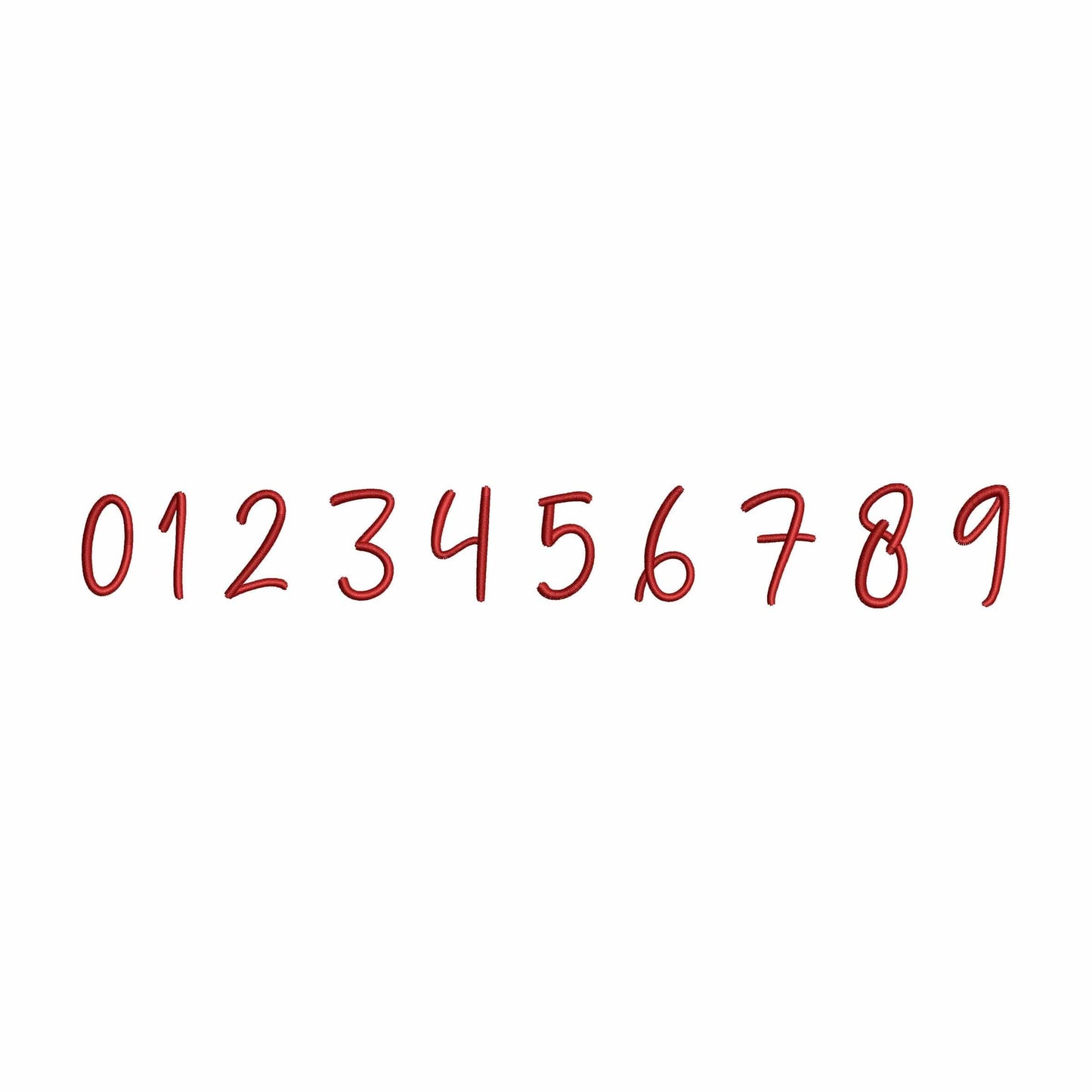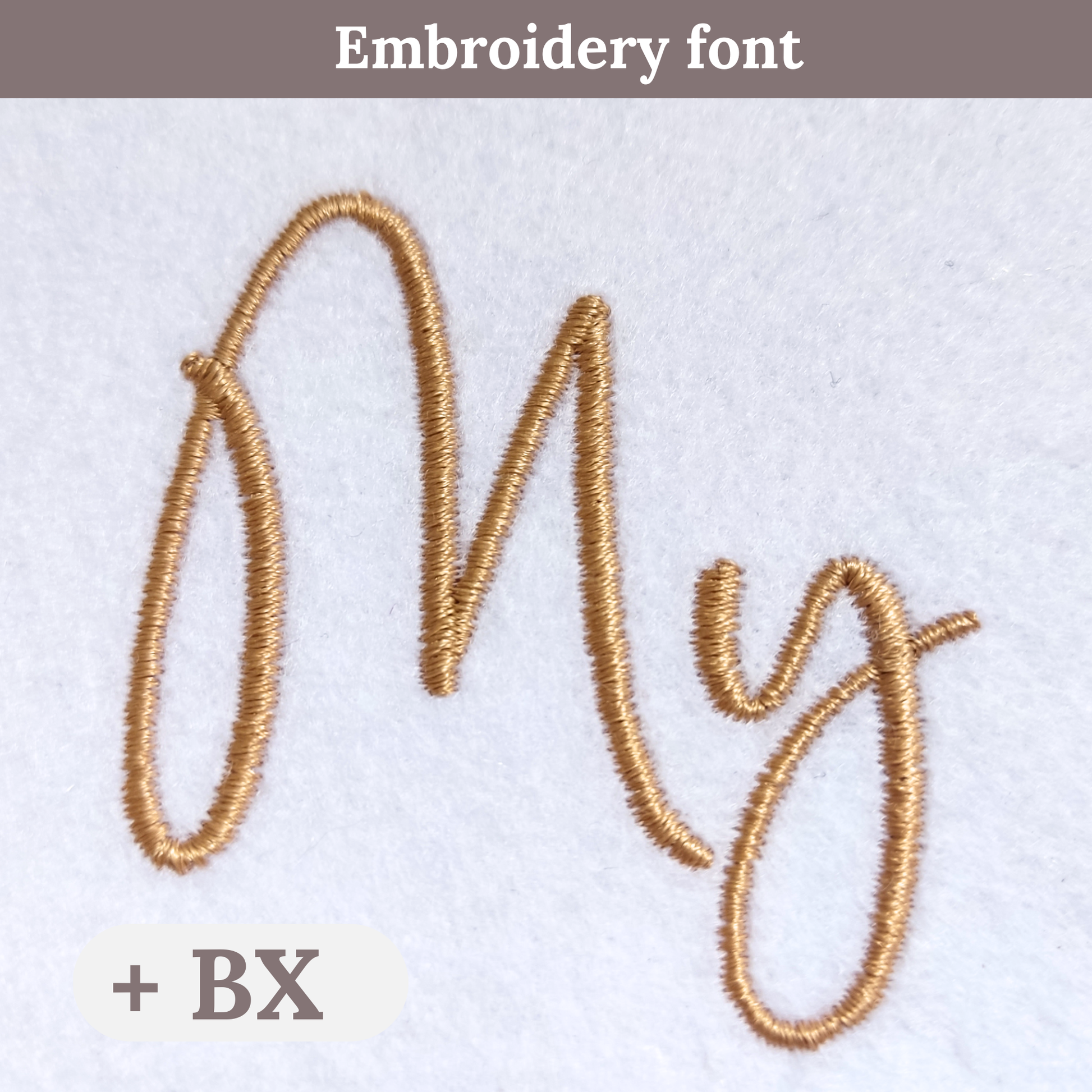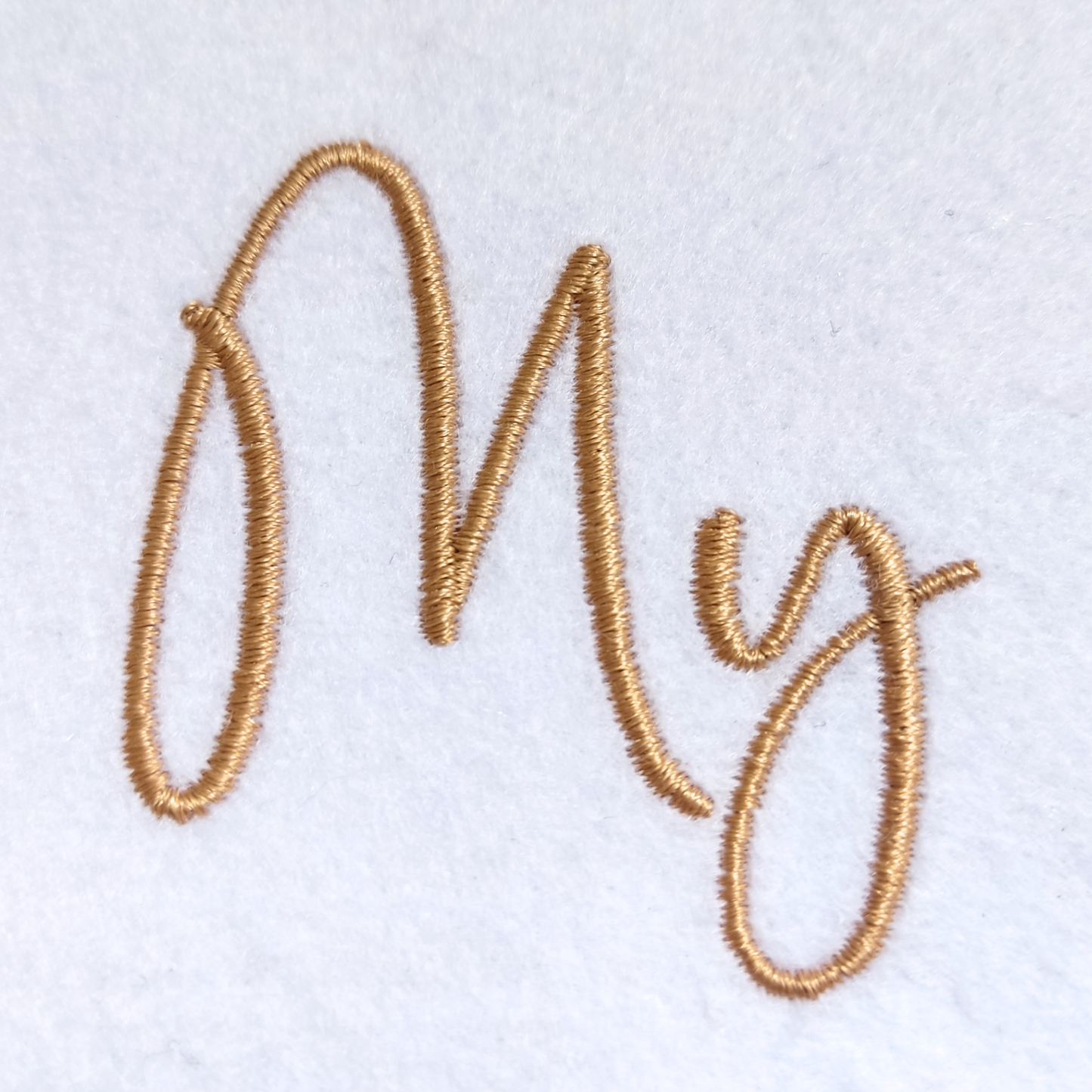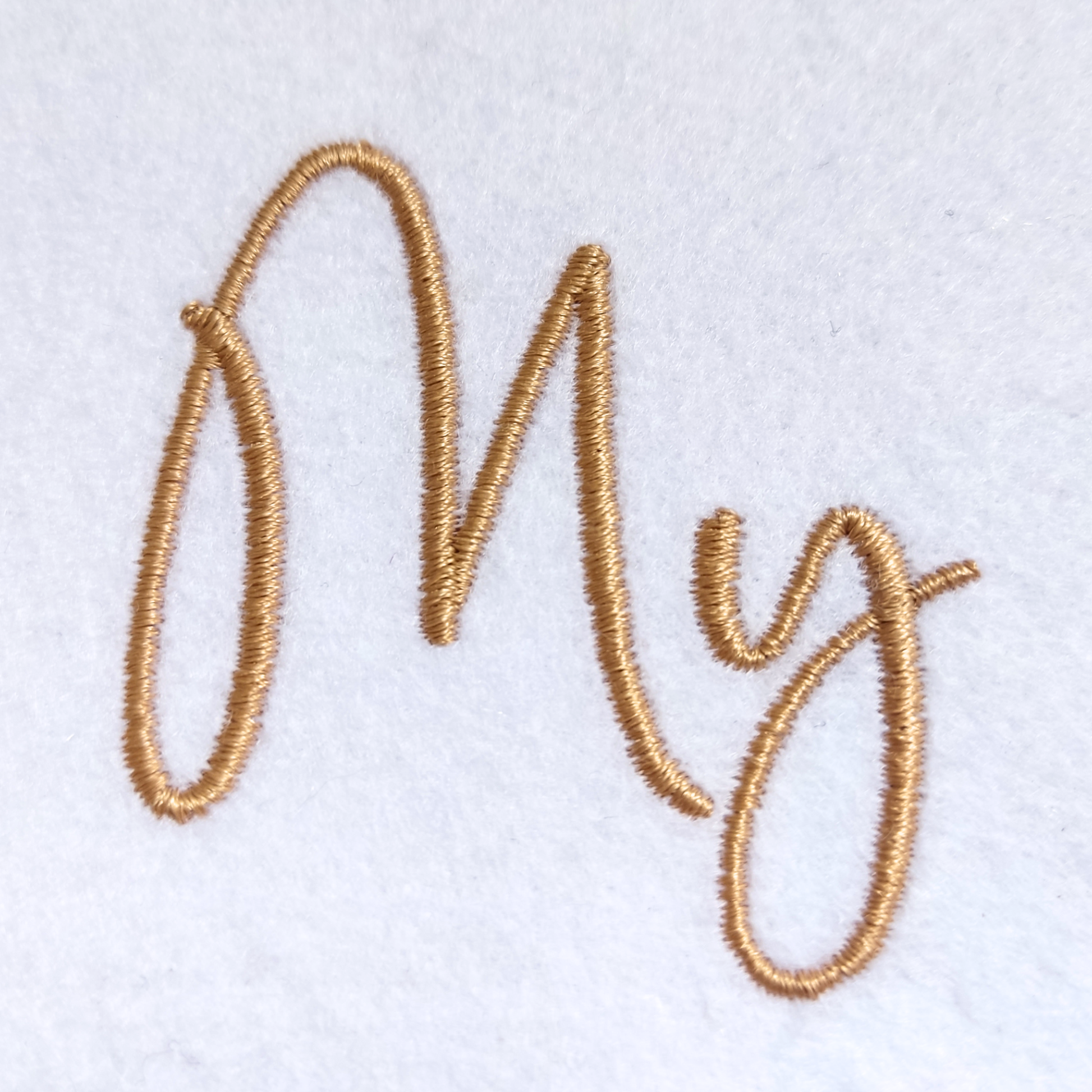
My story - Embroidery font
• Included: A-Z (uppercase), a-z (lowercase), 0-9 (numbers)
This machine embroidery font works well for names, quote projects, shirts, tote bags, keepsakes, and personalized gifts.
A useful digital download for makers who want script lettering with a personal handwritten feel for custom embroidery and memory pieces.